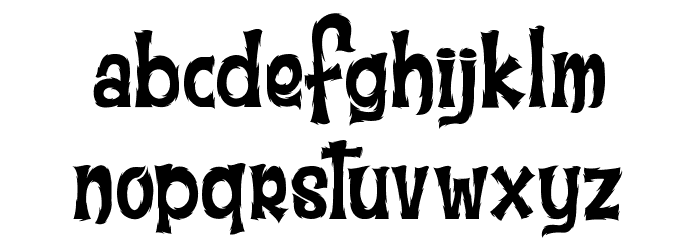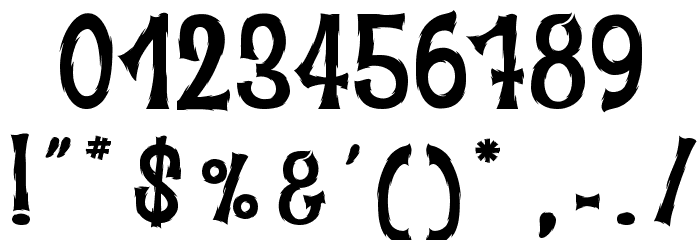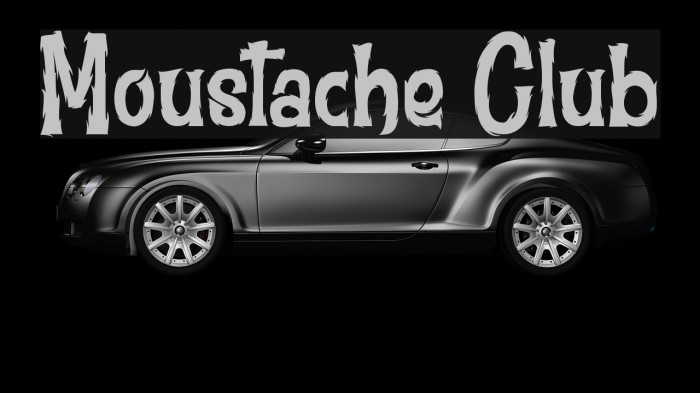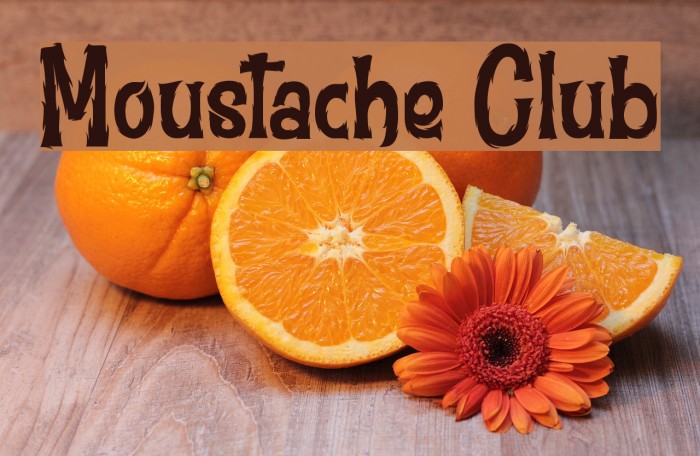
Moustache Club Font
This font features a playful and bold design with a distinctive, whimsical flair. The characters have a hand-drawn, irregular appearance, giving them a unique and artistic style. The strokes are thick and uneven, with a slightly jagged edge that adds to the font's quirky personality. Each letter has a dynamic and energetic feel, making it stand out in any design. The numbers and special characters maintain this lively aesthetic, ensuring consistency across all elements. This font is perfect for projects that require a fun and eye-catching typeface.
A playful, bold font with a whimsical, hand-drawn style.
- Proposed Projects: Ideal for children's book covers, playful branding, event posters, and creative invitations.